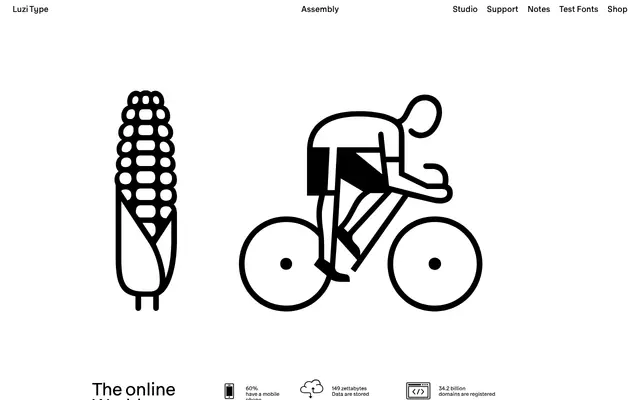
Assembly
A collection of 480 pictogram symbols across five thematic categories, drawing on the Isotype tradition of Otto Neurath and Gerd Arntz.
Five fonts, each mapping symbols to keyboard characters, cover Human, Nature, Transit, Media and Commerce themes. The 480 icons are designed for cross-cultural legibility, taking their visual cues from the Isotype picture system. Suited to infographics, UI design and e-commerce contexts where a consistent, culturally neutral symbol set is needed.
Assembly is a pictogram/symbol font rather than a text typeface, organised into five thematic categories. Its closest classification is display, as icon fonts serve a specialised graphic function rather than running text.